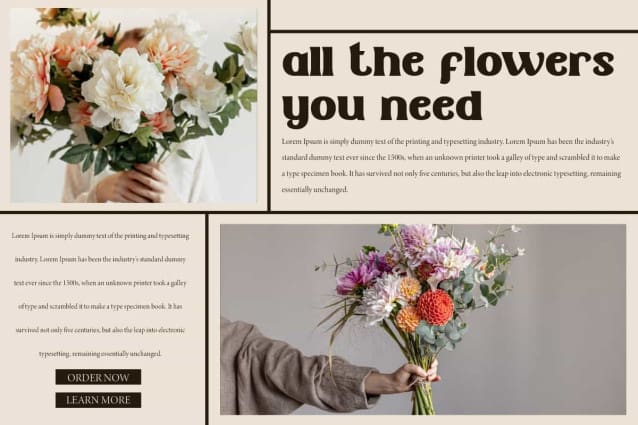
Sunday Fatso Font
Sunday Fatso Font is a retro bold and stylish display font with the feel of a serif typeface. This font will stand out in any design because it is bold and easy to read. It would be good for brand logo, custom design, invitation, magazine cover, menu, poster, product packaging, screen print, signage, social media posts, stationery, sticker, website, and more!
Sunday Fatso Font includes full set for Uppercase and Lowercase Basic Characters, Numbers, Punctuation and Symbols. This font also contain Ligature characters to create the perfect font so that it will be suitable for advertisement, bakery, beauty product, cafe, crafts, event or wedding organizer, fashion, photography, restaurant, spa, travel agency, etc.